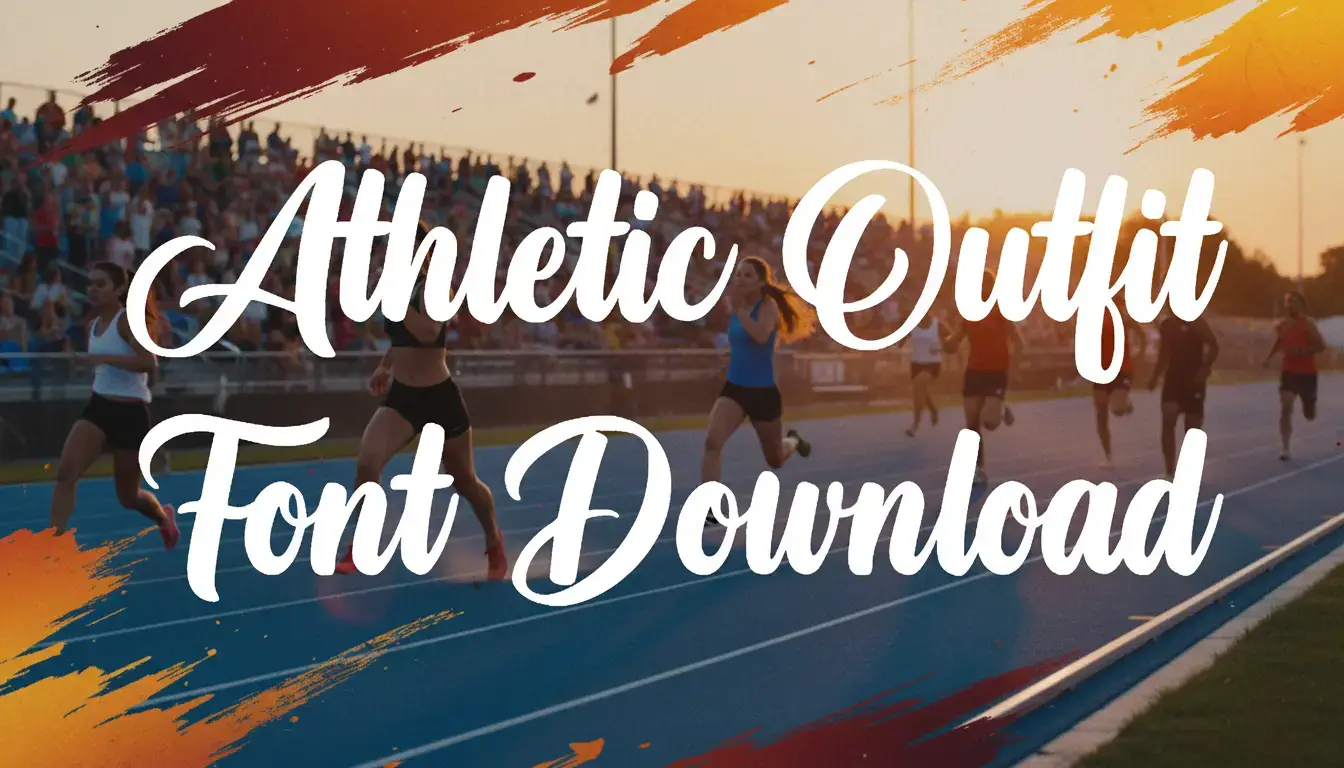
Athletic Outfit Font
Athletic Outfit
Athletic Outfit is a script font created by Octotype. The letters have the smooth movement of real pen lettering, which is why even a single name looks special in it. It's a free download, and you can try it with your own text in the preview above first.
- Designer: Octotype
- Glyphs: 180
What You Can Type With Athletic Outfit
With complete upper and lowercase letters and all ten digits, Athletic Outfit is ready for real wording, not just a single headline. Common punctuation such as &, !, ? and @ is included as well. It also has the accented letters you need for Spanish, French, Portuguese and Italian.
Where Athletic Outfit Works Best
Think of Athletic Outfit for wedding invitations, logos and signature-style headings. Script fonts read best in short bursts, so keep it to names, titles and one-line quotes. Skip all caps: script capitals are drawn to start a word, not to fill one.
Does Athletic Outfit support accented letters?
Yes. Athletic Outfit includes the accented letters needed for Spanish, French, Portuguese and Italian, so it works for more than just English.